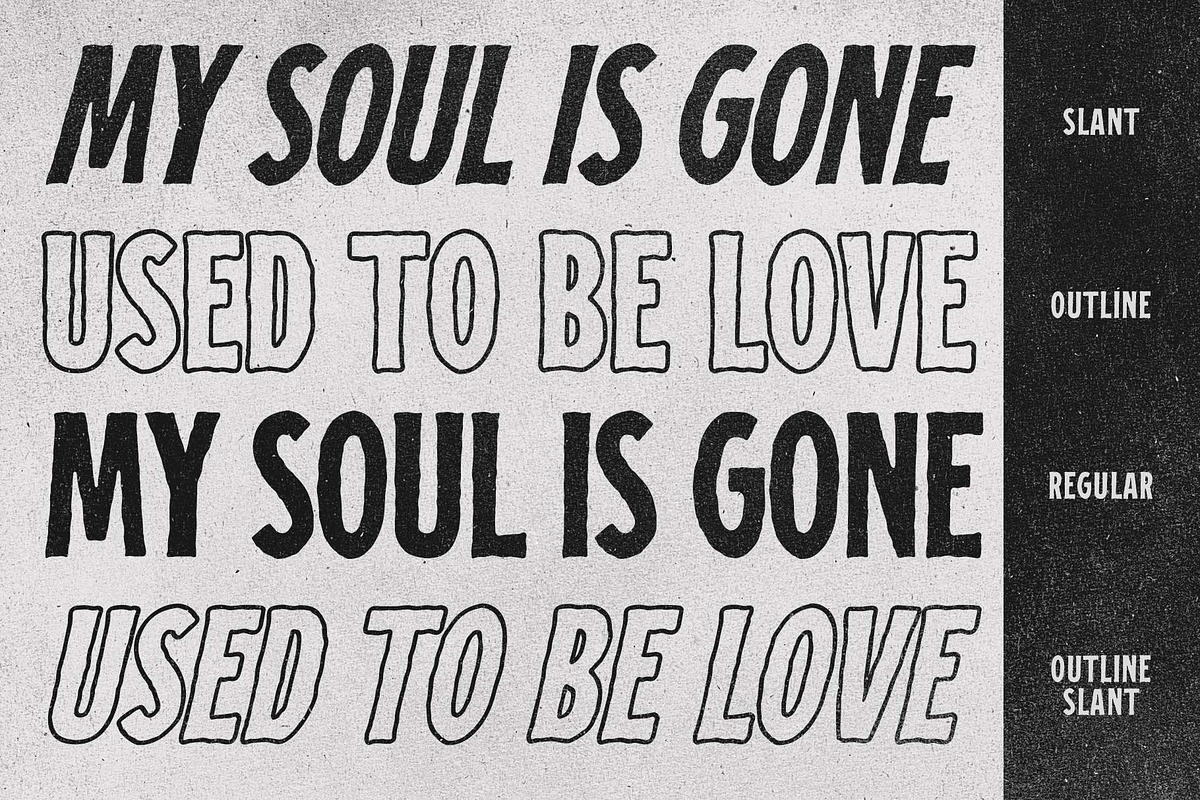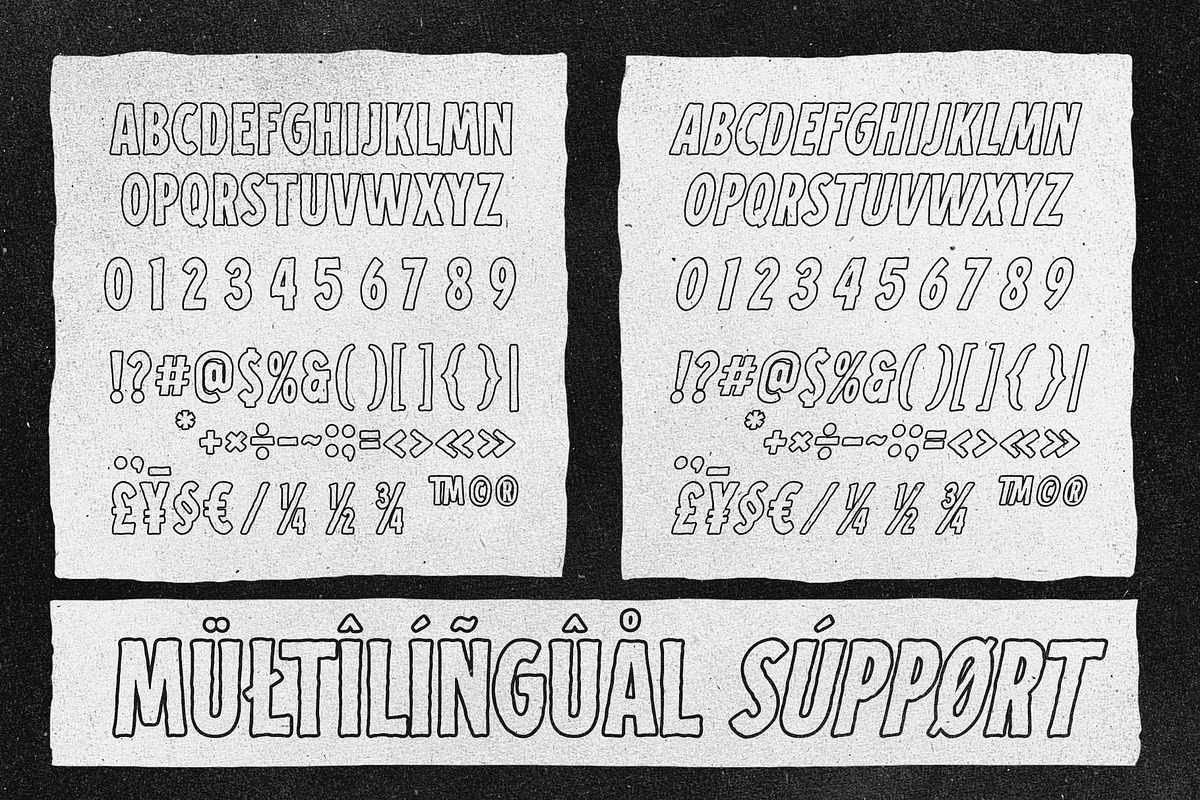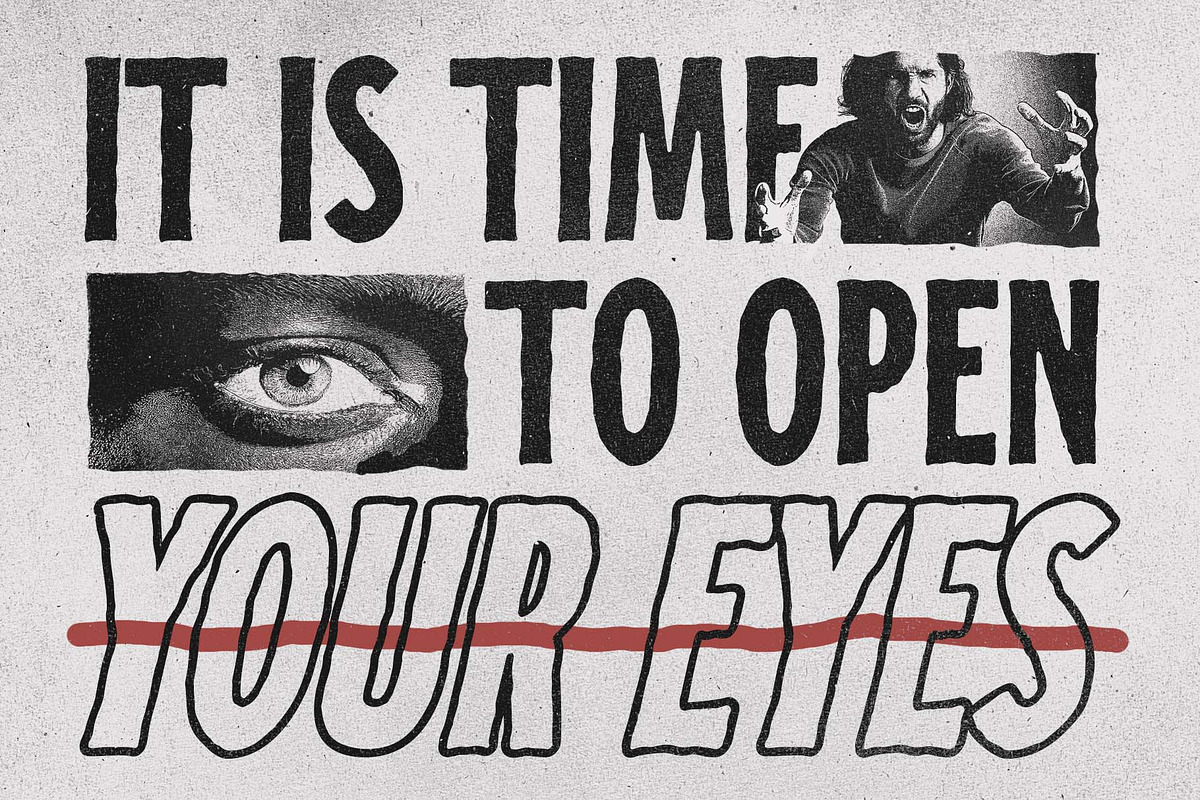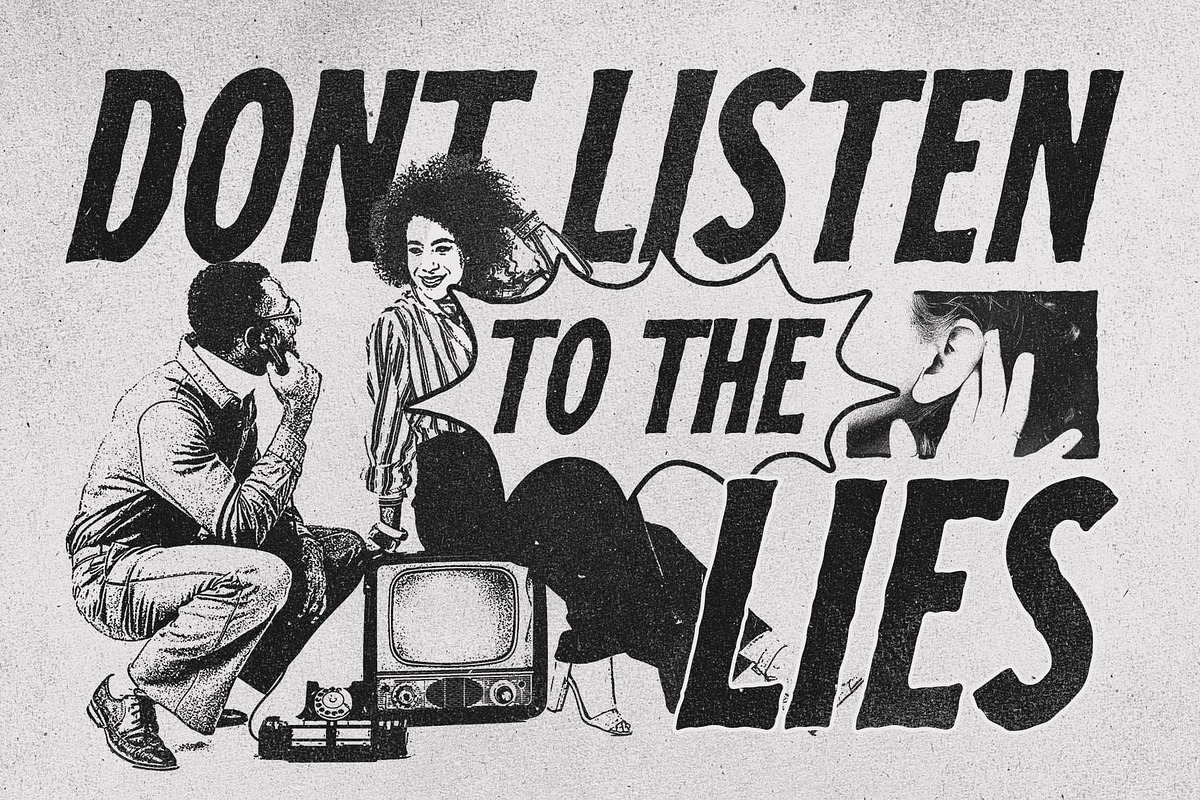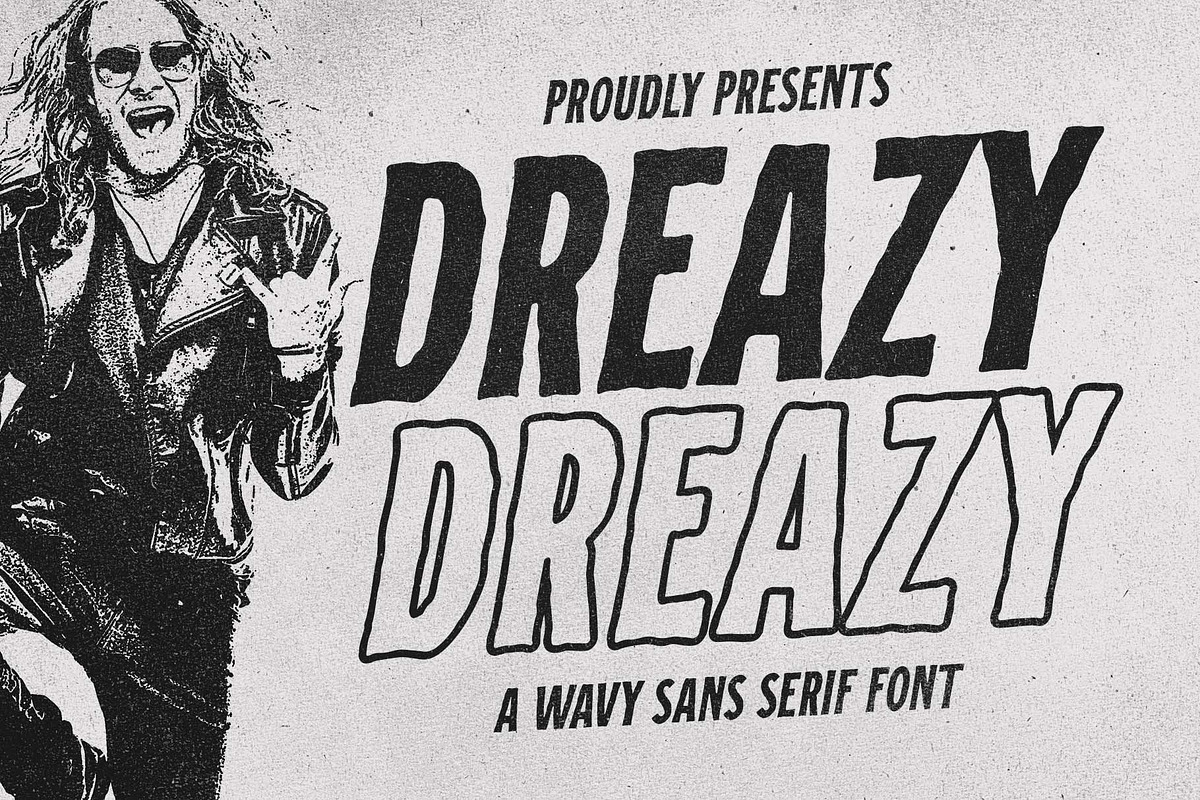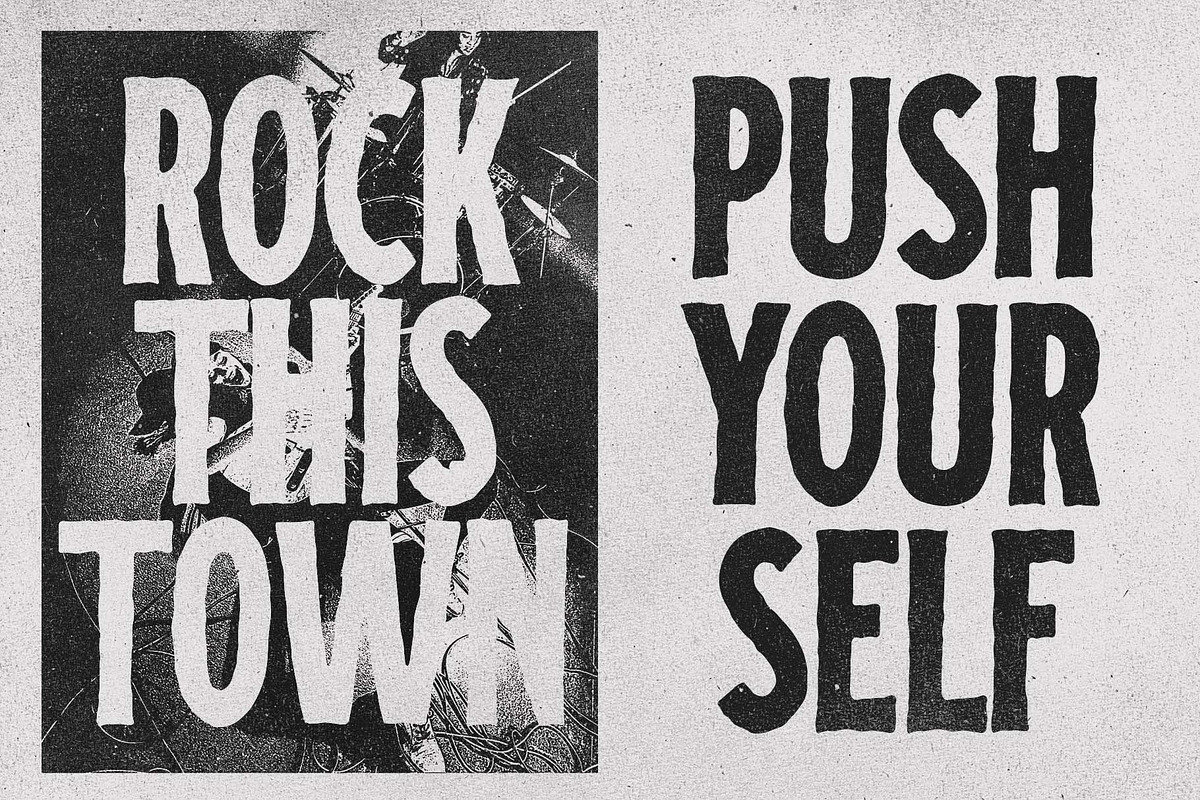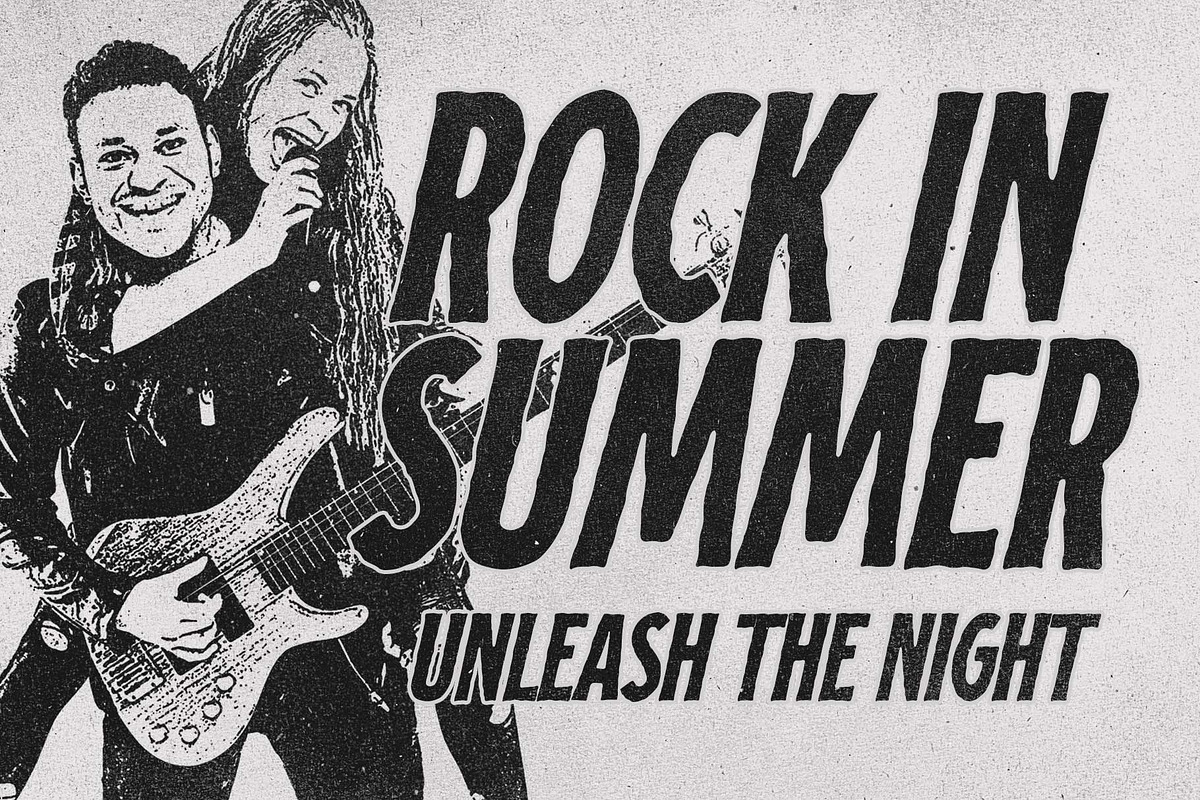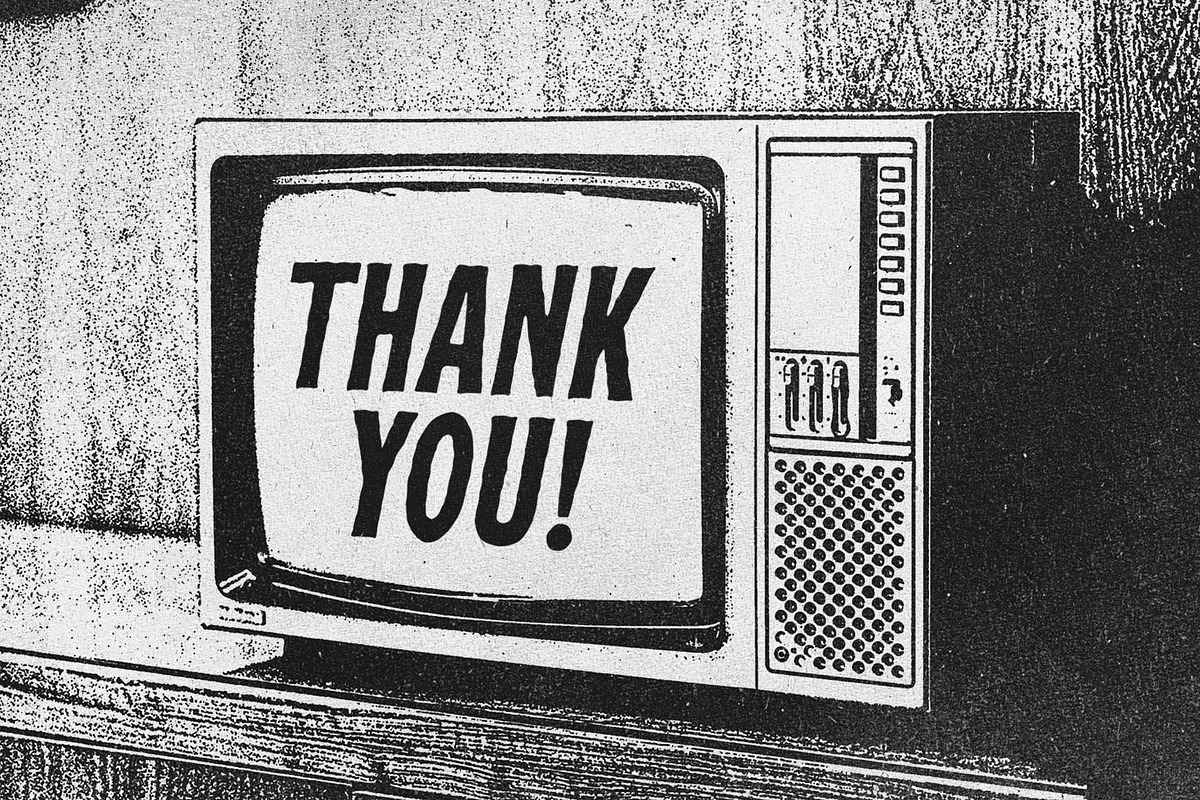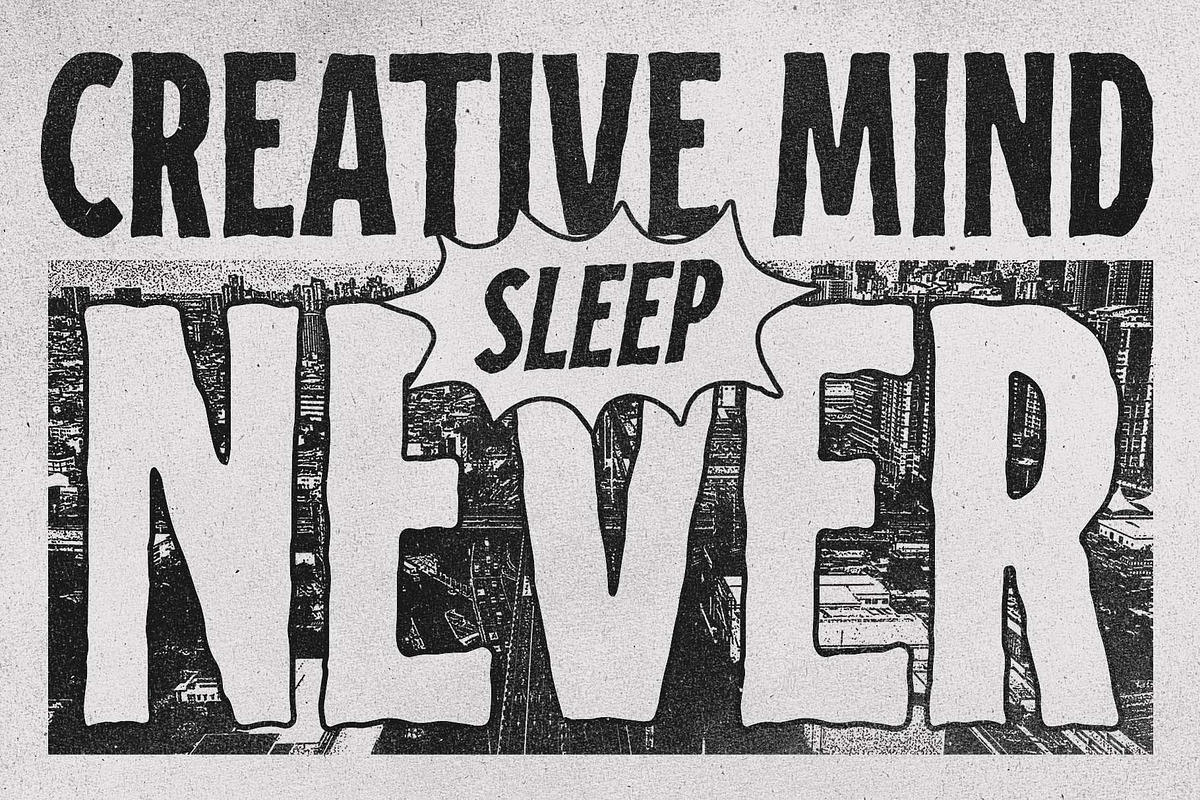
Dreazy a Wavy Sans Serif Font
Hello, awesome people! This time, we have a new font called Dreazy a wavy sans serif font by Blankids Studio.
Dreazy a wavy sans serif font is made for any professional project branding, such as logotype, watermarks, poster, branding, promotions, product packaging, etc. Every letter has a rough style design. This font comes in Otf. and Ttf. files.
Dreazy font includes a full set of rought uppercase and lowercase letters, numerals and punctuation. This font has a rough style. See the previews above to get some inspiration on how to use them. Happy designing!